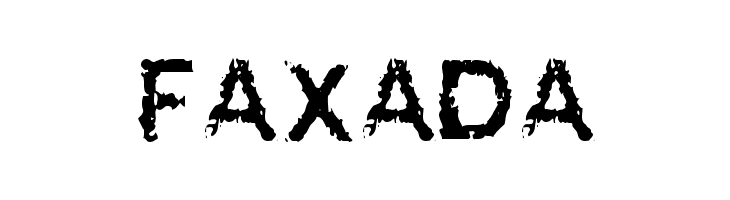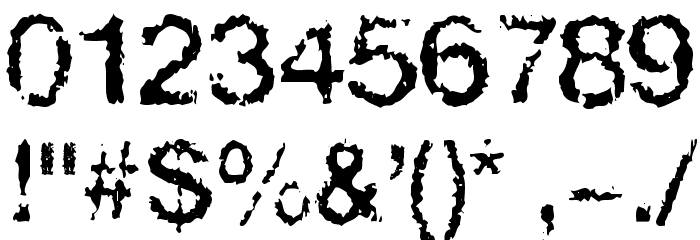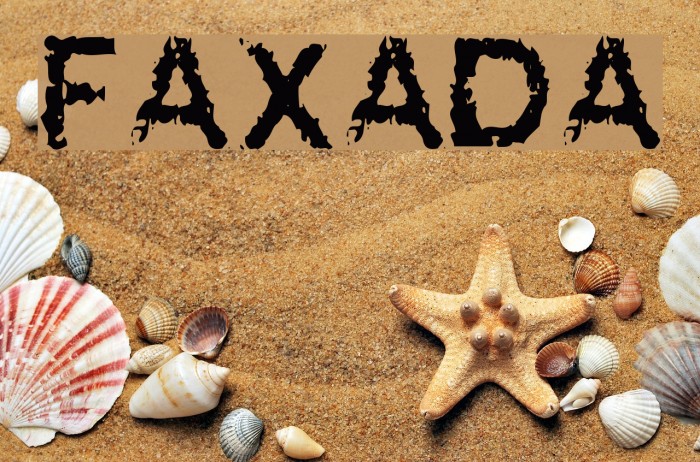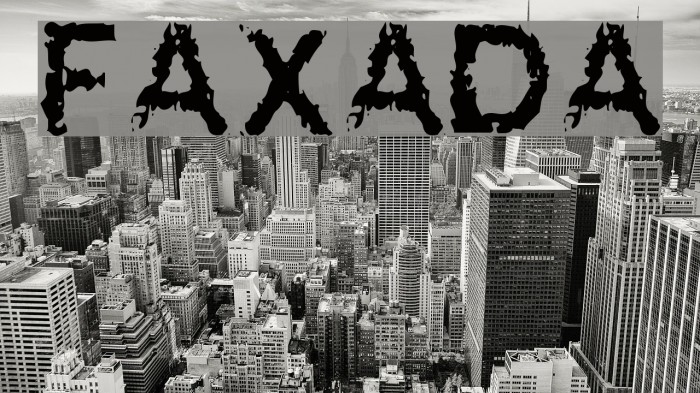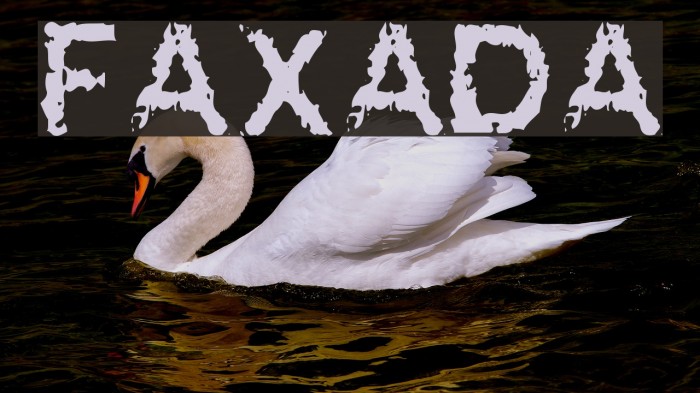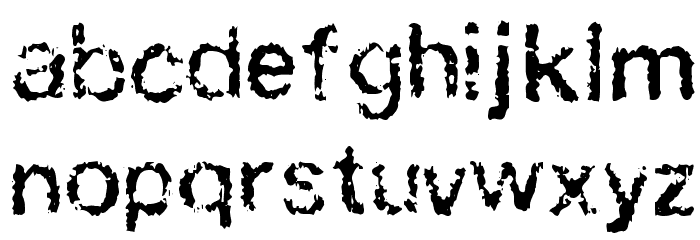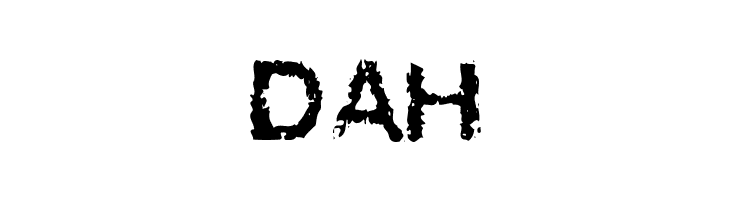
FAXADA Font
FAXADA Description
This font features a distressed, grunge style with rough edges and a textured appearance, giving it a worn and weathered look. The characters are bold and impactful, with a high level of detail that suggests a hand-crafted or eroded effect. The uppercase and lowercase letters maintain consistent proportions, while the numbers and special characters follow the same rugged aesthetic. This font's unique style makes it stand out, offering a sense of rawness and authenticity.
A bold, distressed font with a grunge, textured appearance from Uncategorized fonts.
- Proposed Projects: Ideal for projects that require a gritty, urban feel such as music album covers, posters, or branding for edgy, alternative brands.
- Overall Style: Grunge, Distressed